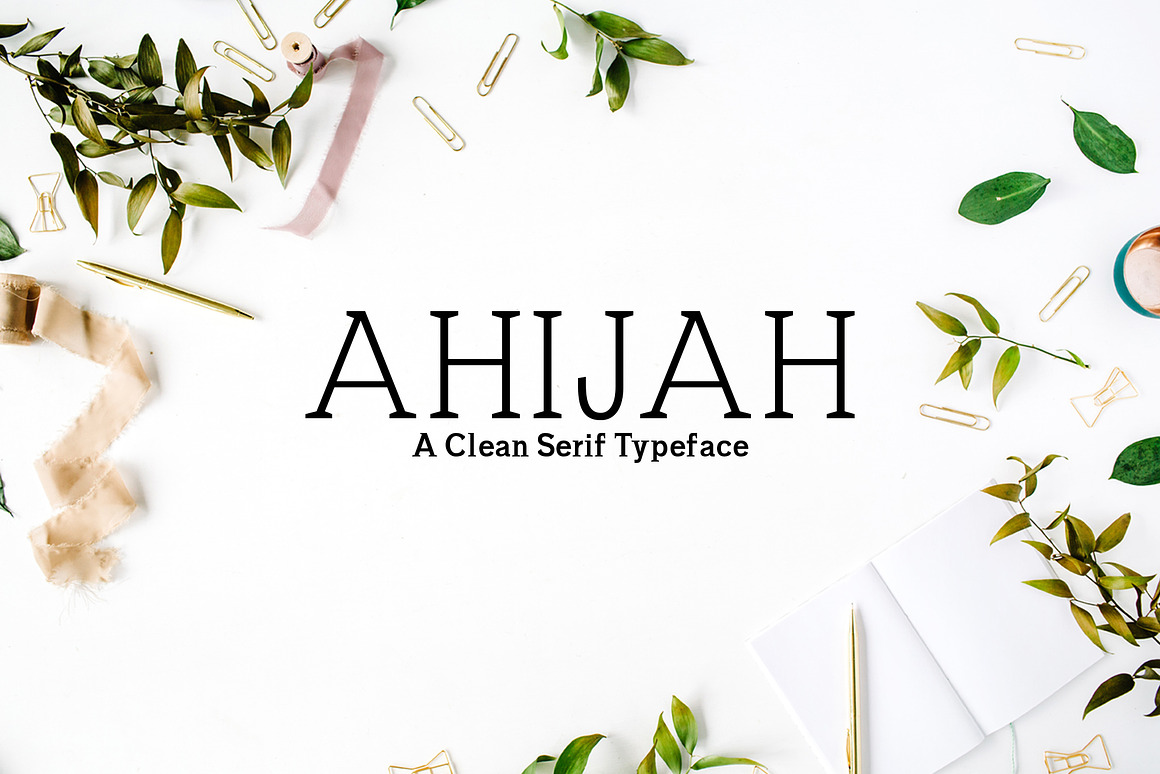
Ahijah A Clean Serif Font Family
Ahijah A Clean Serif Font Family is perfect for modern editorial design, contemporary book publishing, clean magazine layouts, professional websites, minimalist branding, corporate communications, digital publications, and sophisticated presentation materials.
Ahijah A Clean Serif Font Family is exciting because it seamlessly blends traditional serif elegance with contemporary minimalism, featuring refined letterforms and optimized spacing that create exceptional readability while maintaining sophisticated visual appeal. Its clean architecture ensures outstanding performance across all modern media platforms.
Ahijah A Clean Serif Font Family family includes light, regular, medium, and bold weights with corresponding italic variations, offering designers eight meticulously crafted font styles for comprehensive typographic flexibility and visual hierarchy.
Editorial professionals consistently select Ahijah A Clean Serif Font Family for its exceptional versatility in both digital and print applications. The font's optimized character spacing and contemporary serif styling ensure excellent legibility at various sizes while maintaining elegant visual presence. Its comprehensive weight range provides excellent typographic hierarchy for complex editorial layouts, corporate documents, and user interface design requirements.
The Ahijah A Clean Serif Font Family download includes extensive language support, professional punctuation sets, and specialized characters for international project compatibility. This thorough coverage ensures seamless implementation across global markets and multilingual publications. The font's technical precision and consistent baseline alignment create polished layouts that reflect organizational professionalism and attention to detail.
Contemporary businesses appreciate Ahijah A Clean Serif Font Family's ability to project sophistication while maintaining accessibility and modern appeal. Its balanced personality works equally well in conservative corporate environments and progressive creative contexts, making it an indispensable typography resource for organizations seeking to establish credible, contemporary brand presence through superior typographic communication.